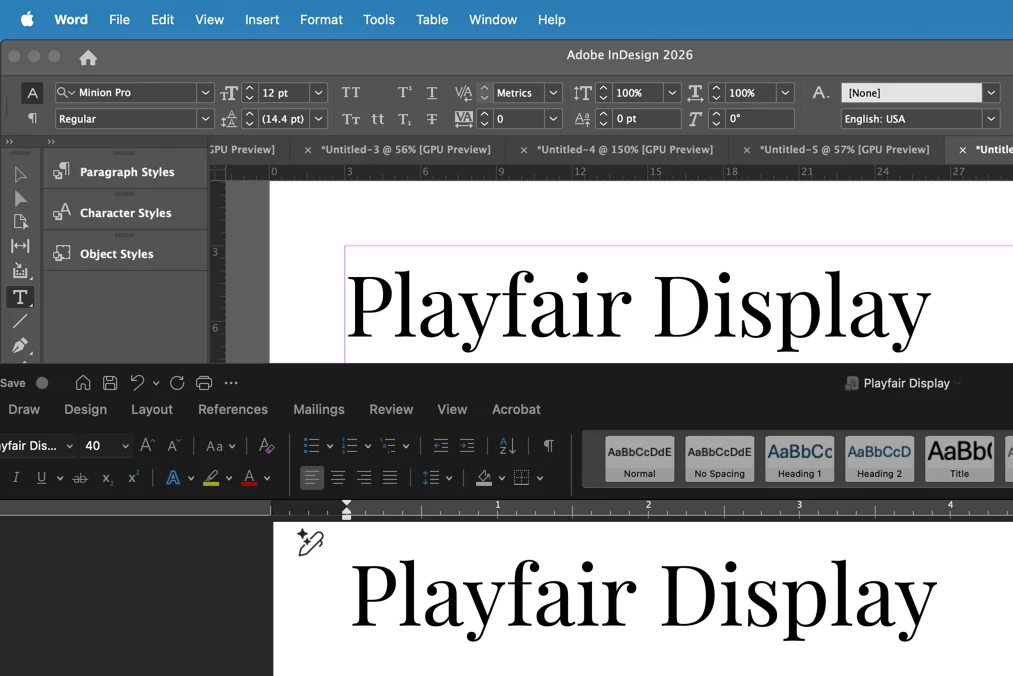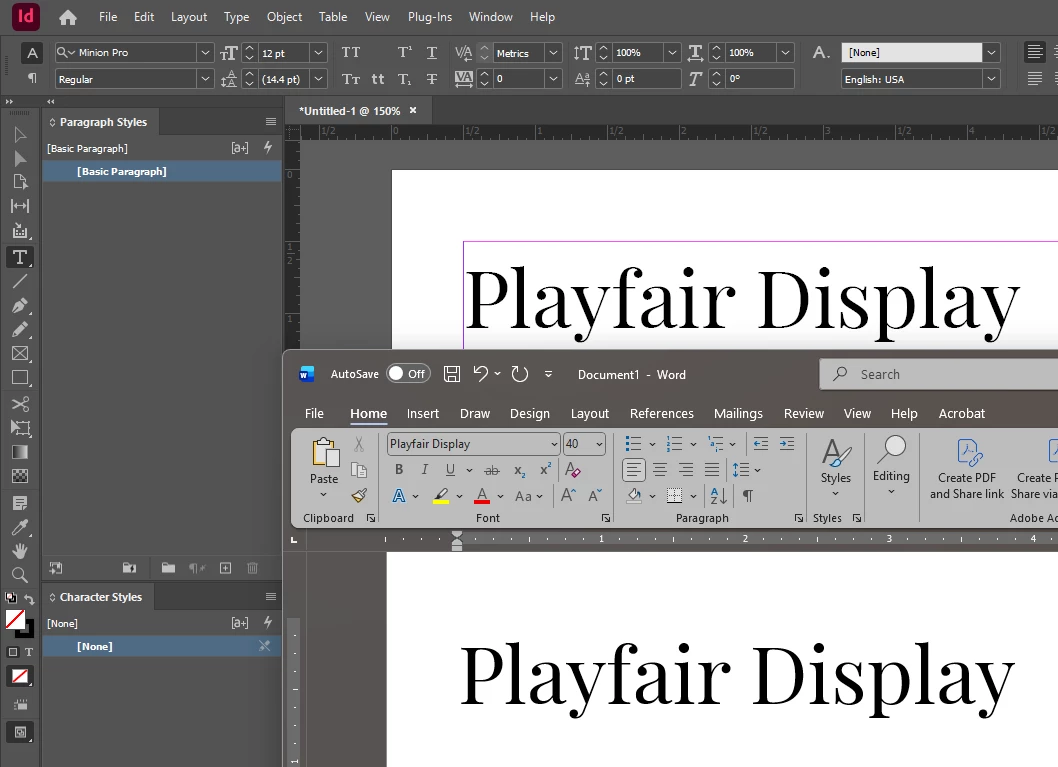
Adobe Font Install FairPlay Display - renders too bold in InDesign, but perfect in MS Word
I installed Adobe Create Cloud this week. In navigating to Adobe Fonts I came across Fairplay Display family so I installed it. However, I'm getting both display and printing variances with regular and italic in InDesign where it almost appears there's a bold override. But when I view the font on adobe fonts web browser library and ms word, it looks like the perfect weight. I've tried uninstalling the font, checking for software updates, but can't seem to get InDesign to render the font properly. Any ideas?
Ok, so here's the same dual app screen shot on Win 11.
Playing with it... they look about the same to me. Maybe Word (below) is slightly heavier, if anything.
yes, Playfair. Looks great on a mac. I'm on Windows 11 and getting much different results.
Is it possible you have another copy of the font installed somewhere, which could cause a font conflict?
Do you mean Playfair Display?